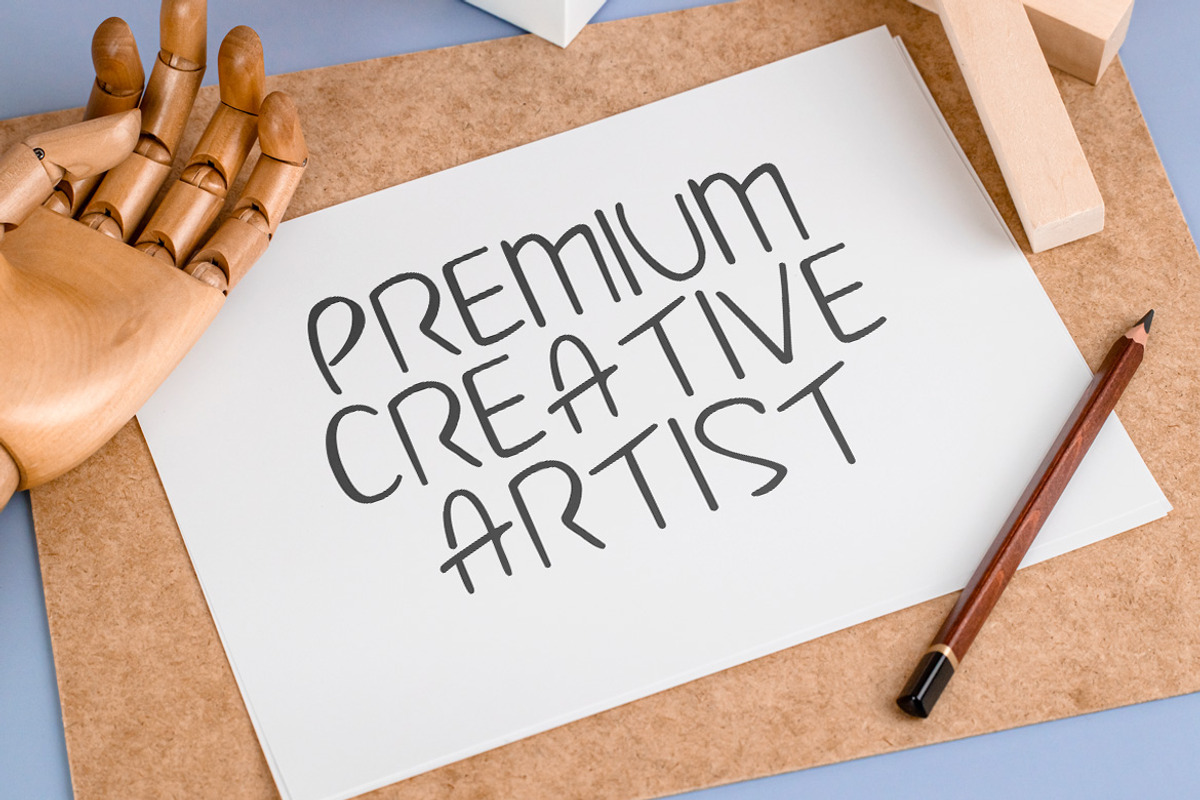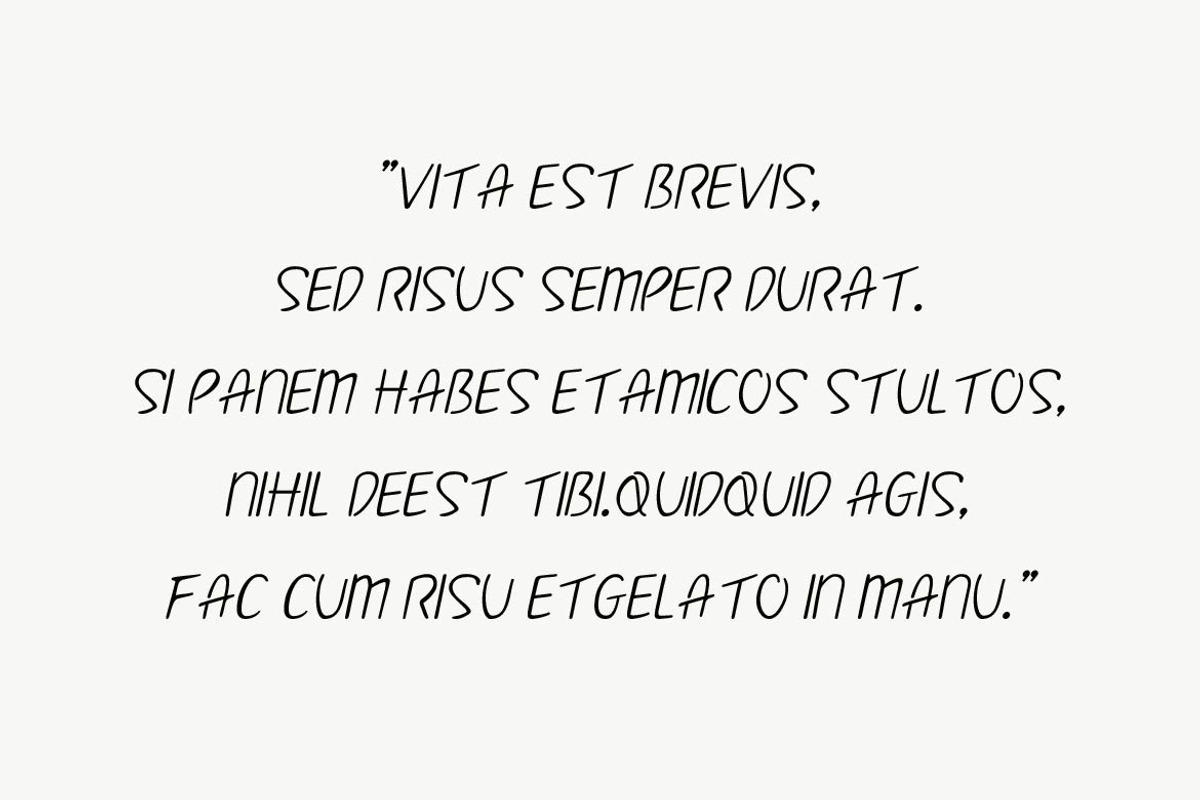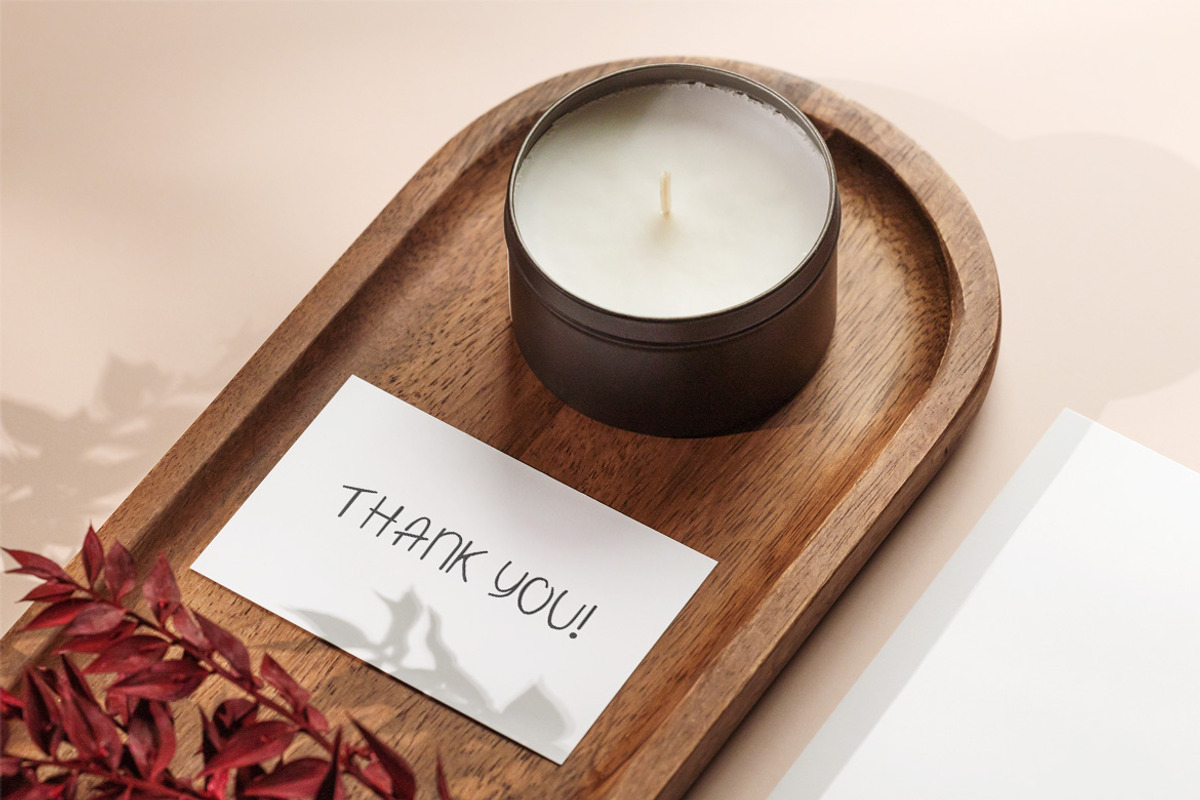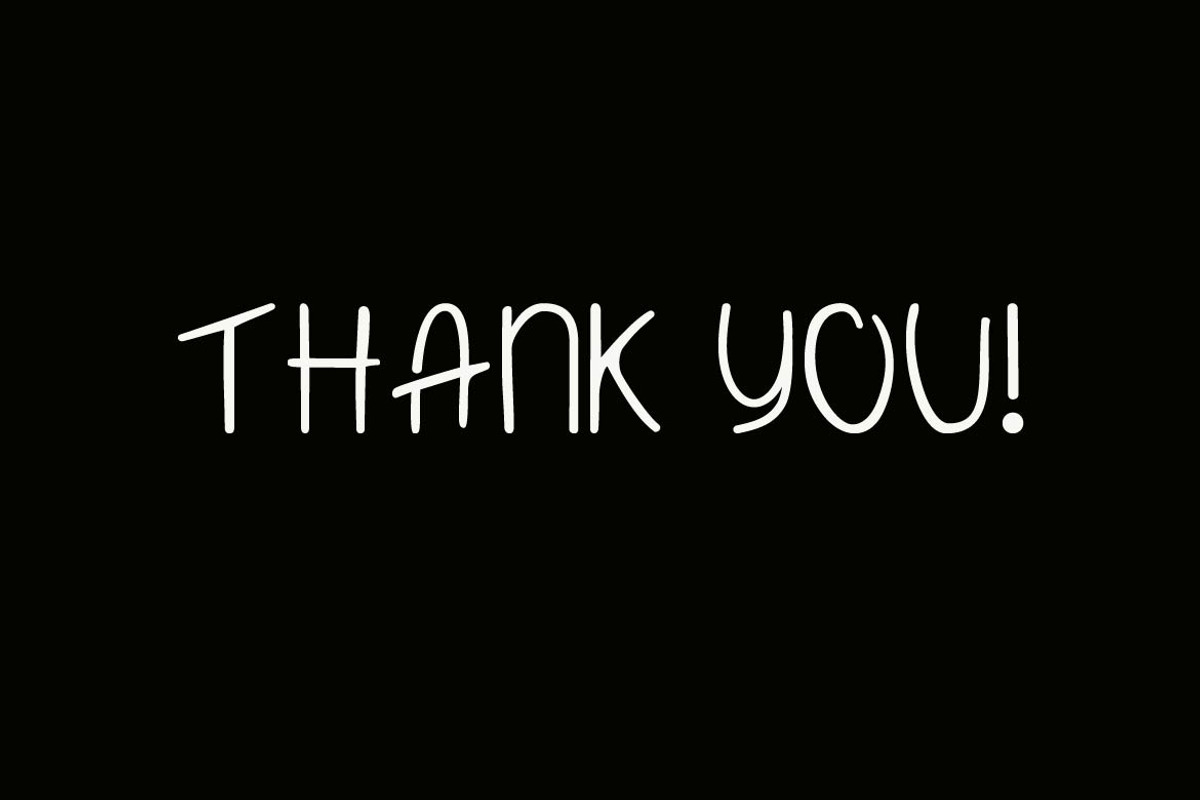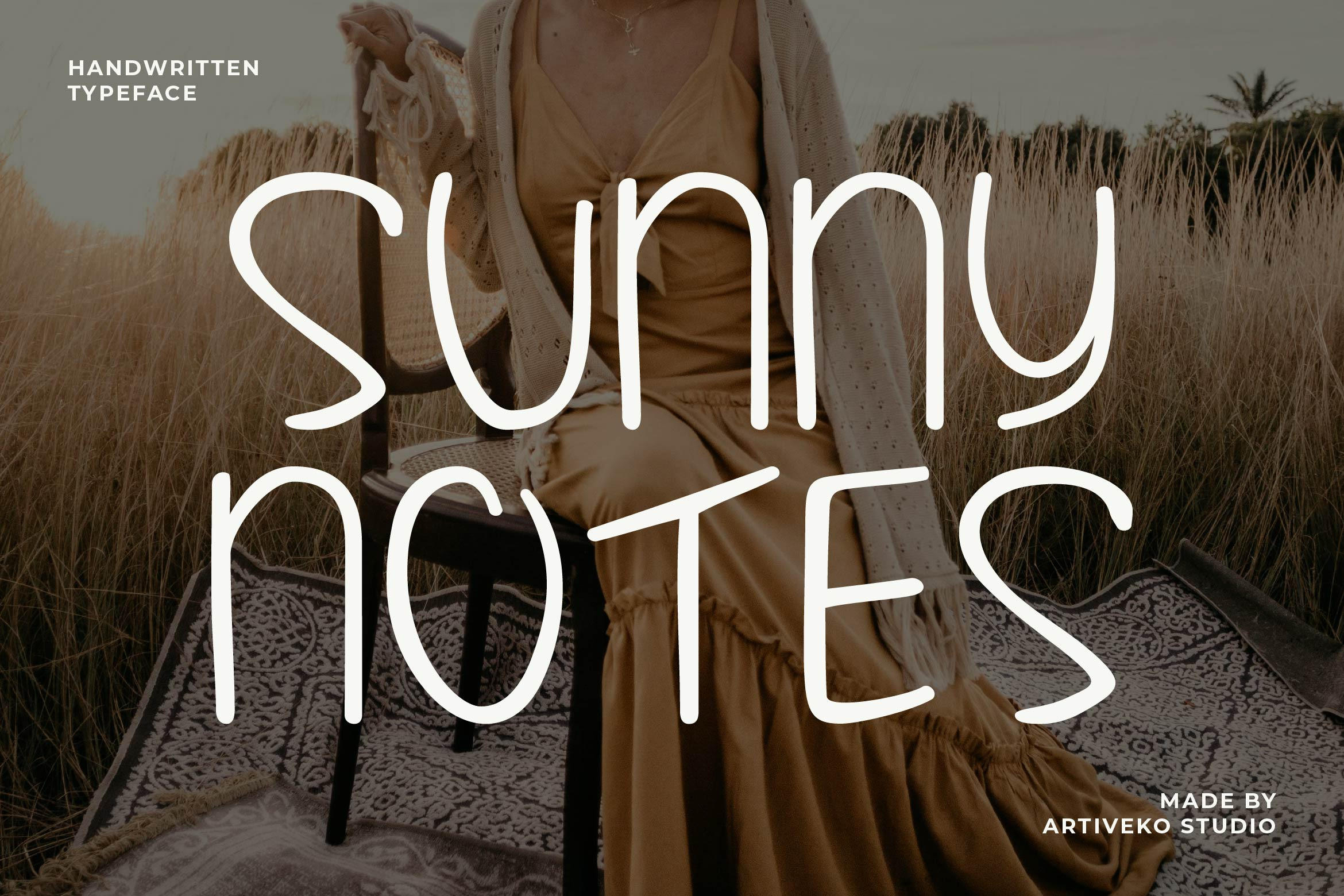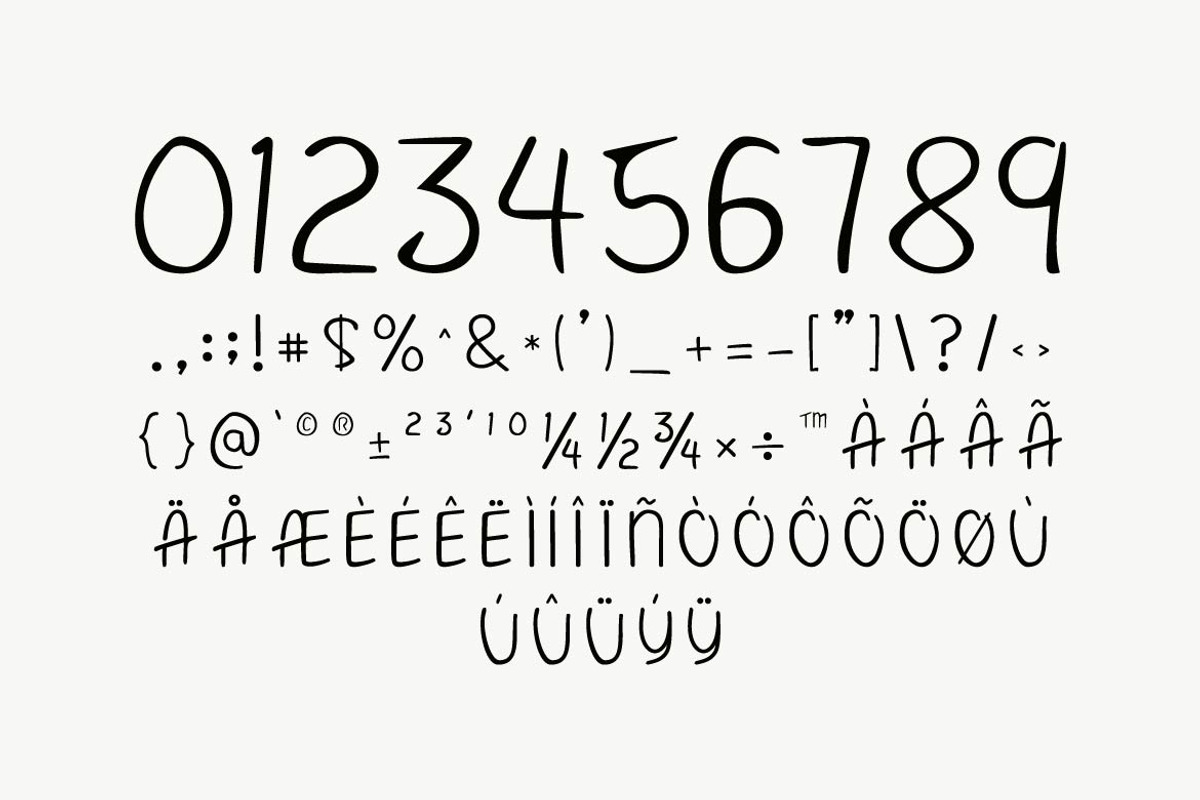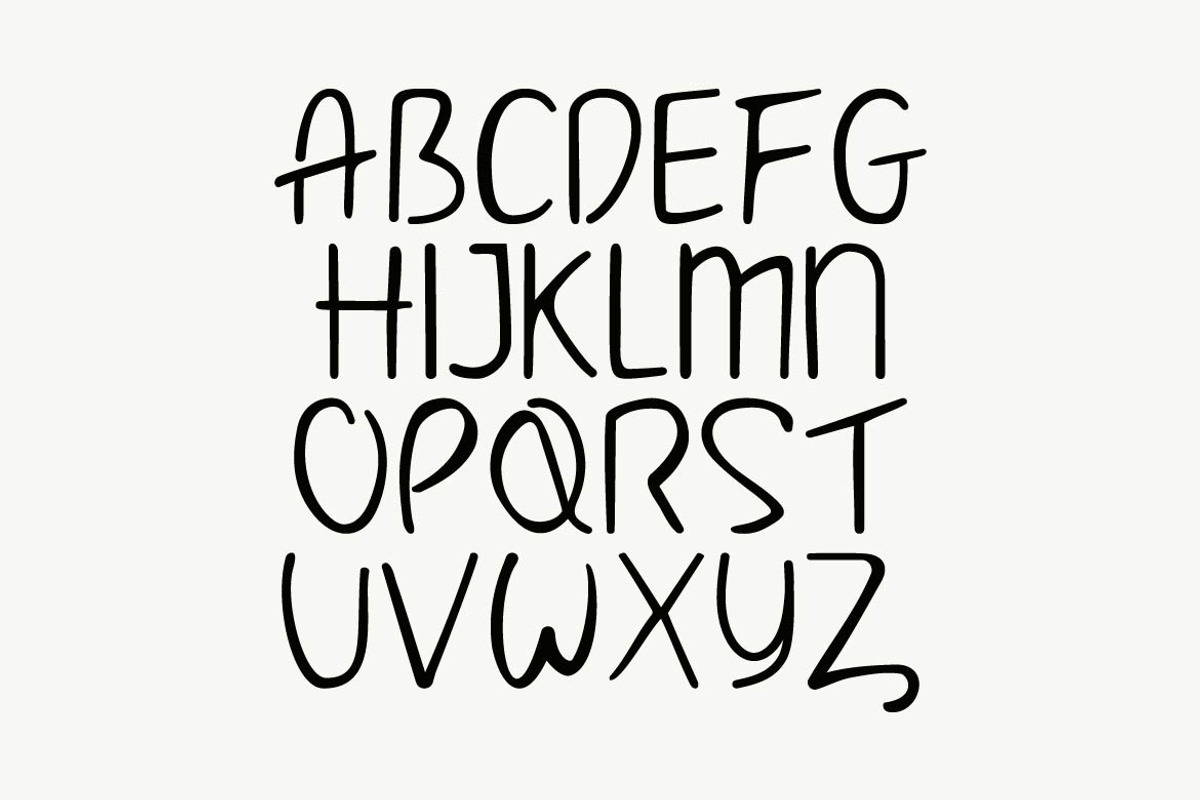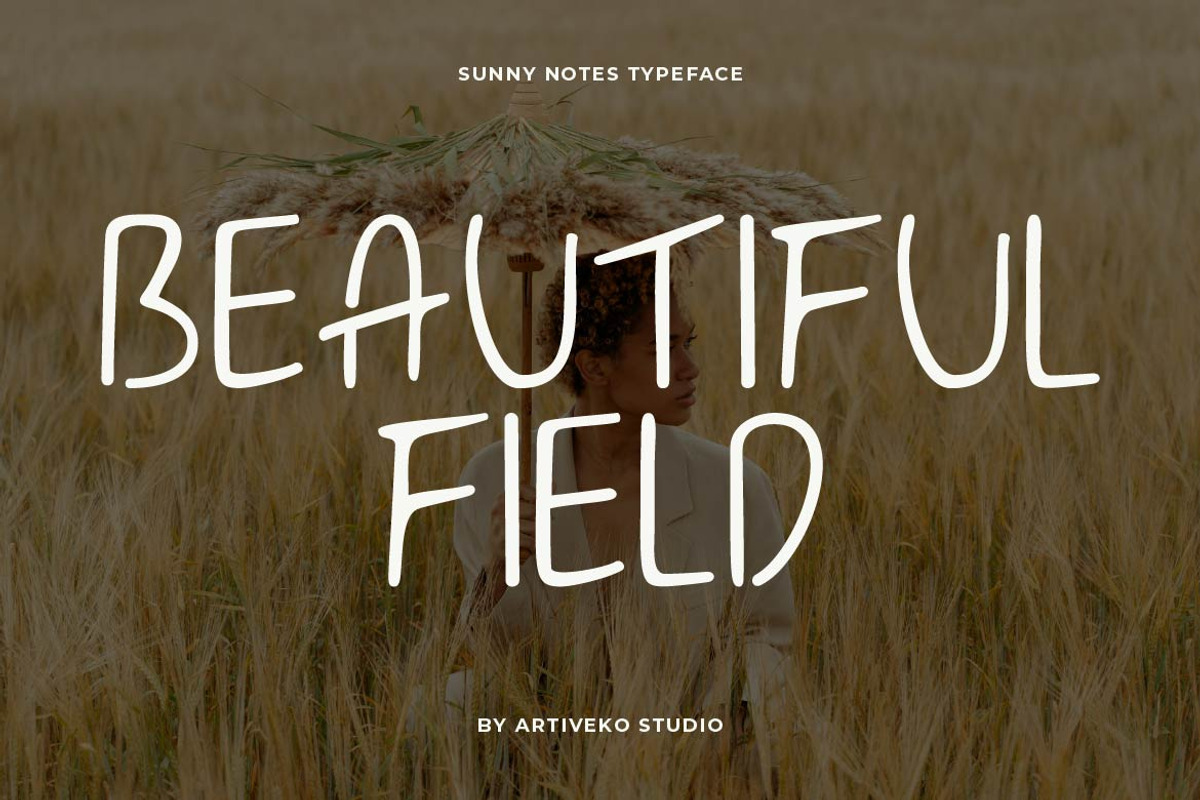
Sunny Notes Handwritten Font
Sunny Notes is a joyful handwritten font that captures the spirit of sunny days and spontaneous creativity. With bouncy strokes, playful curves, and a casual rhythm, Sunny Notes feels like a friendly note scribbled on a postcard — warm, personal, and full of life. It’s perfect for quotes, social media, planners, greeting cards, stickers, children’s projects, and anything that needs a happy, human touch.